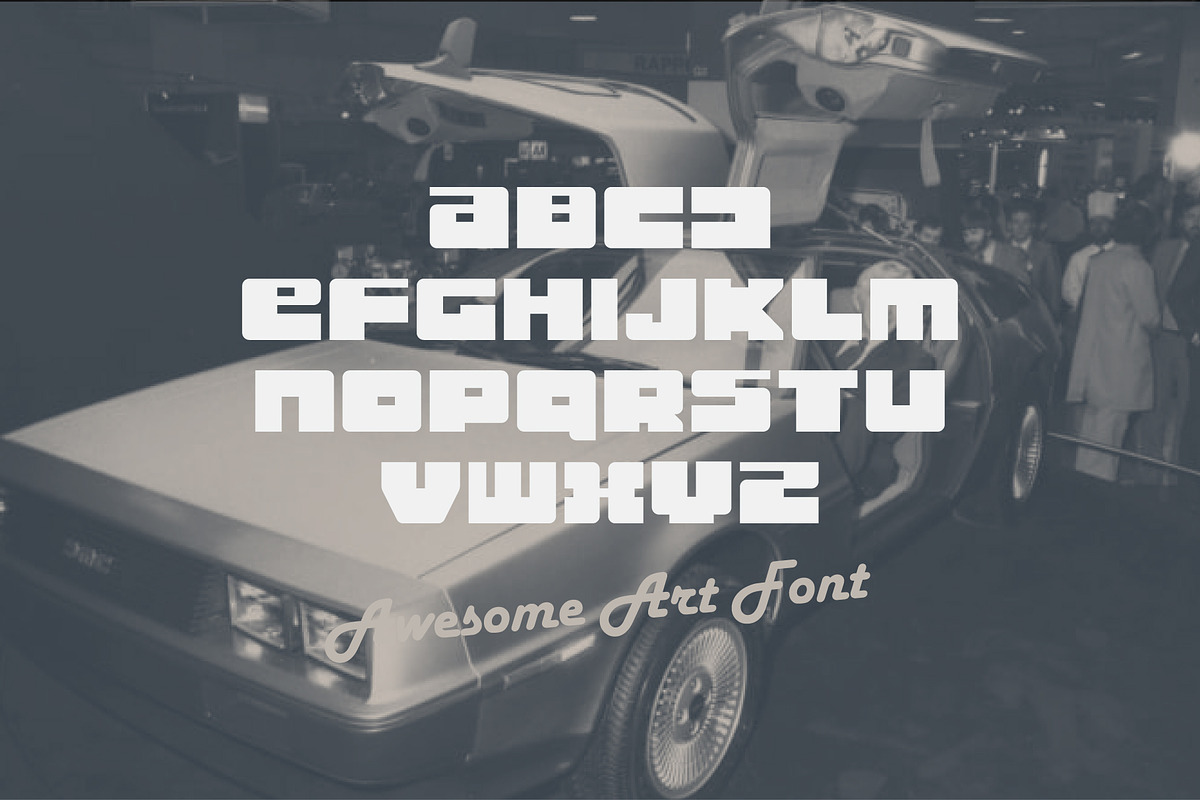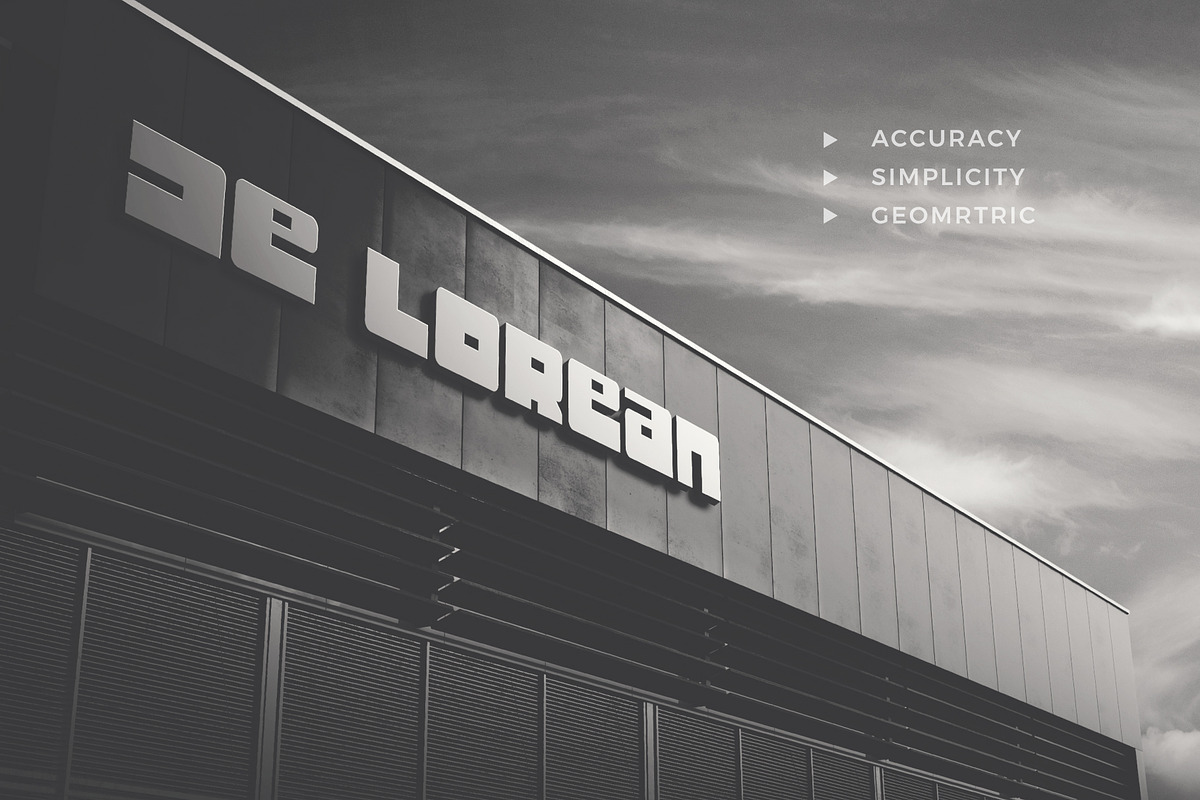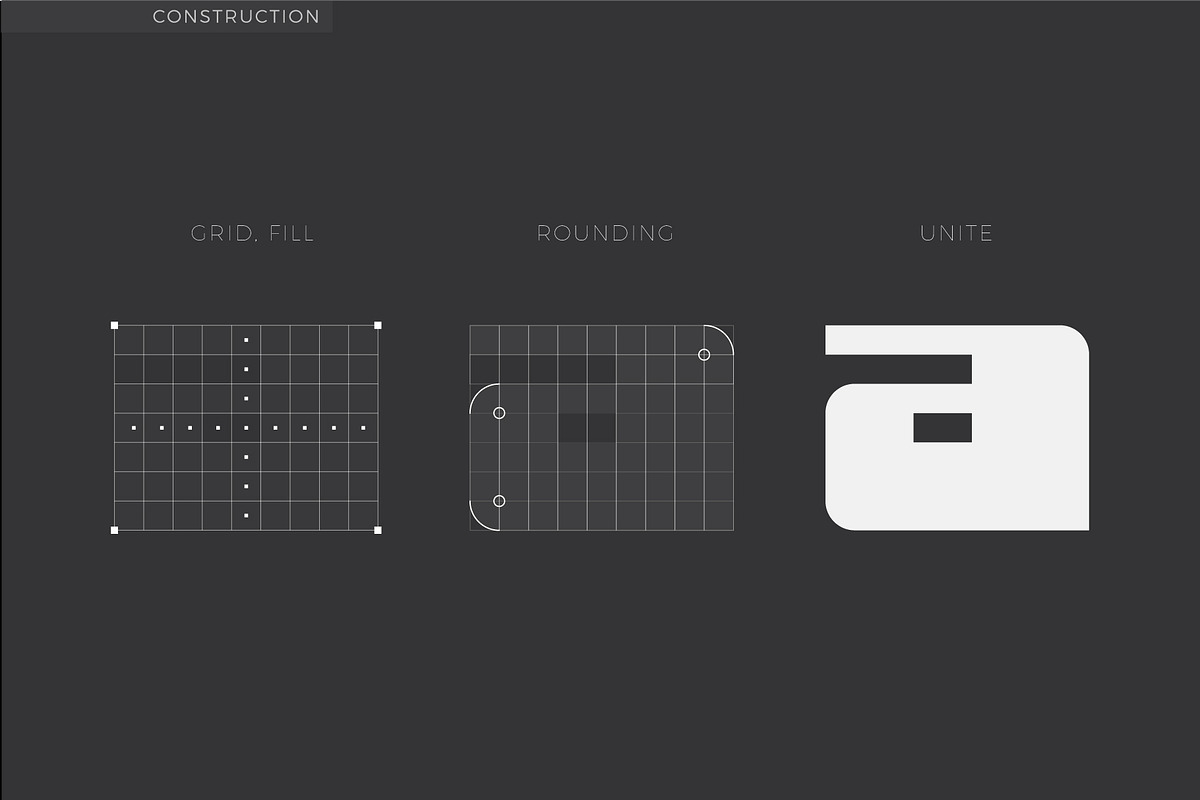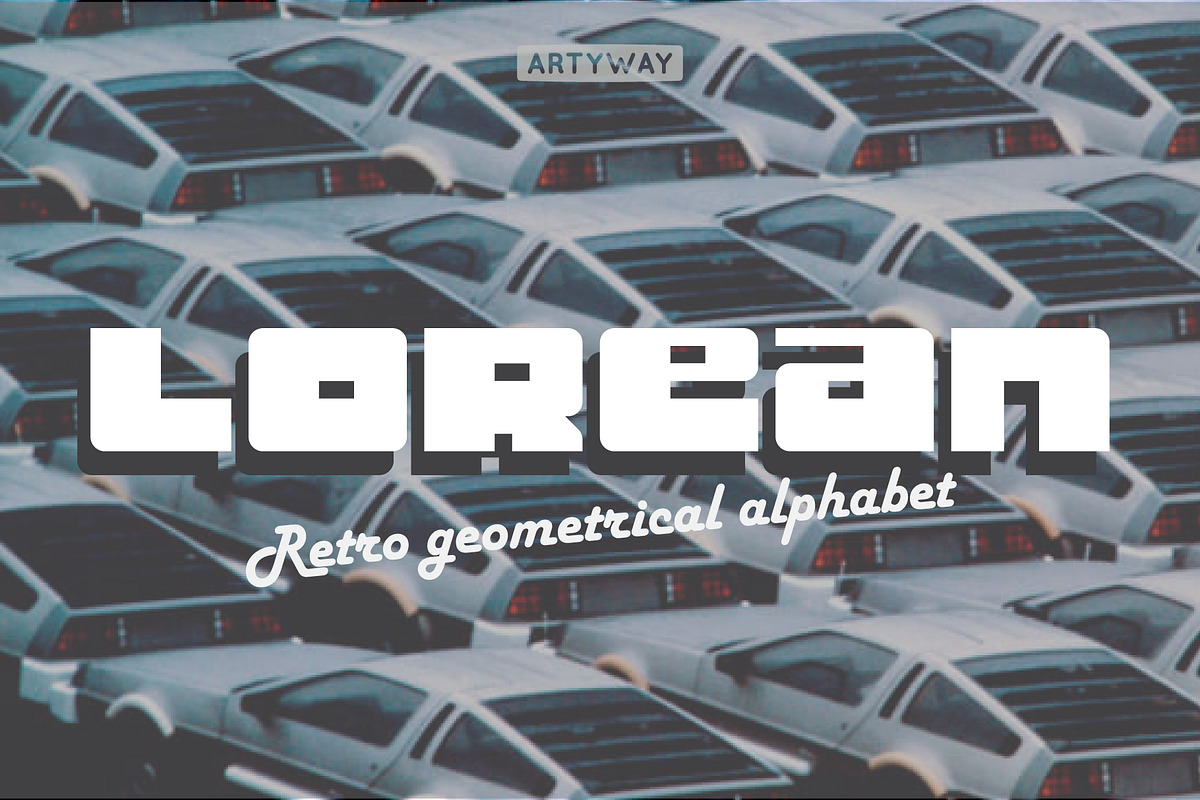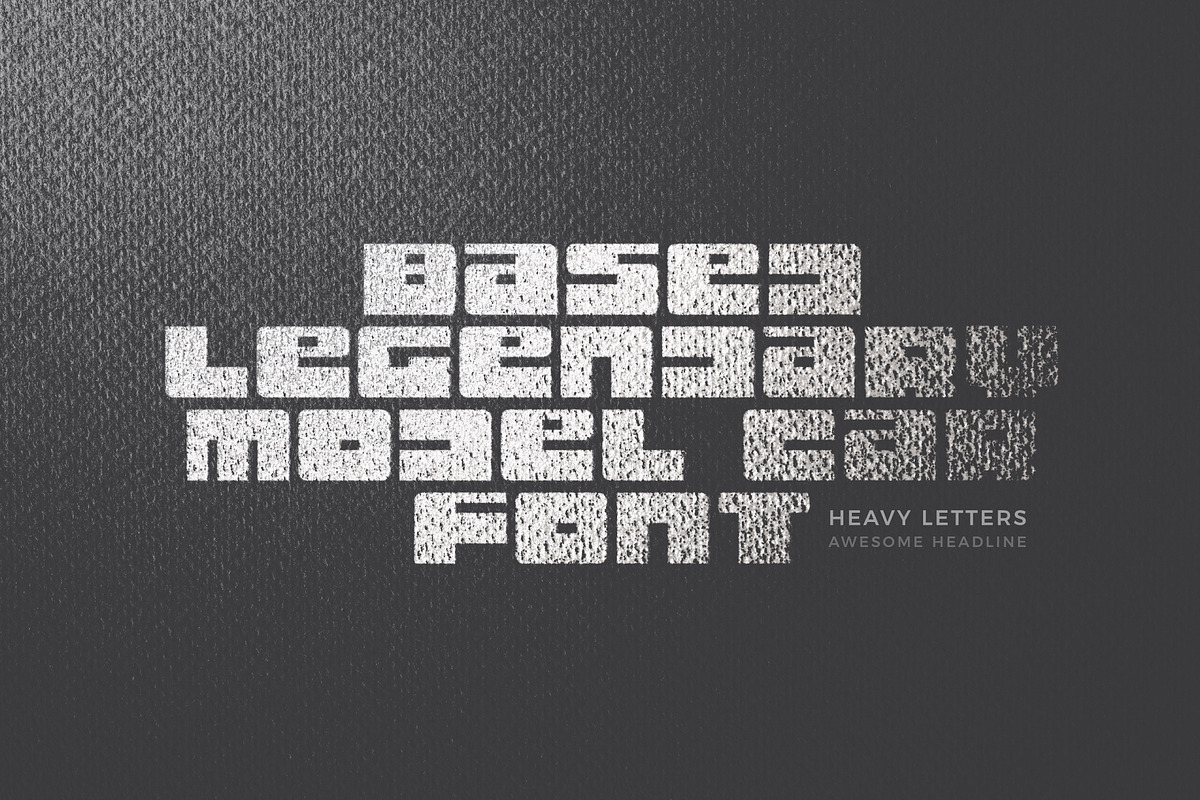
Lorean Headline Font
Lorean Font – A Retro Futuristic Typeface Inspired by a Legend
Bring a touch of nostalgia and futuristic charm to your projects with the Lorean Font. Inspired by the iconic DeLorean car from Back to the Future, this geometric typeface blends retro aesthetics with modern design versatility. Its clean, bold shapes evoke a sense of timeless sophistication, making it a perfect choice for retro-futuristic themes.
### Perfect for:
- Retro-futuristic branding
- Science fiction posters
- Automotive-themed projects
- Tech startups with a nostalgic edge
- Logos, packaging, and headlines that demand attention
Relive the future with Lorean Font – a typeface that captivates with its unique blend of retro nostalgia and modern design sensibilities.